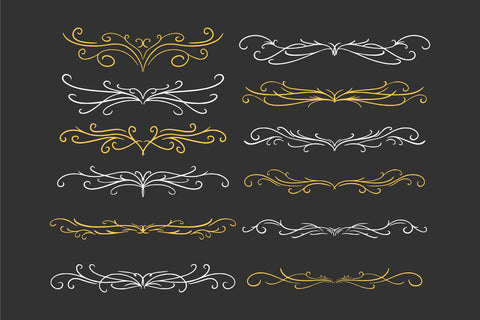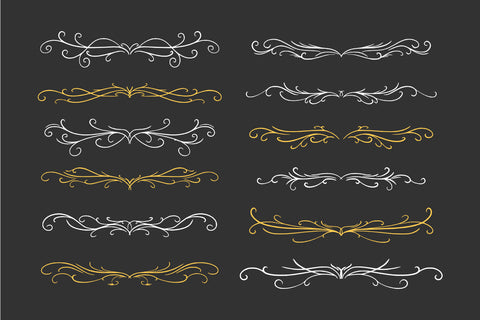
Ornamentaly Dingbat Fonts
Ornamentaly is a unique and elegant dingbats font. Add it confidently to your projects and you will be astounded by the outcome generated!